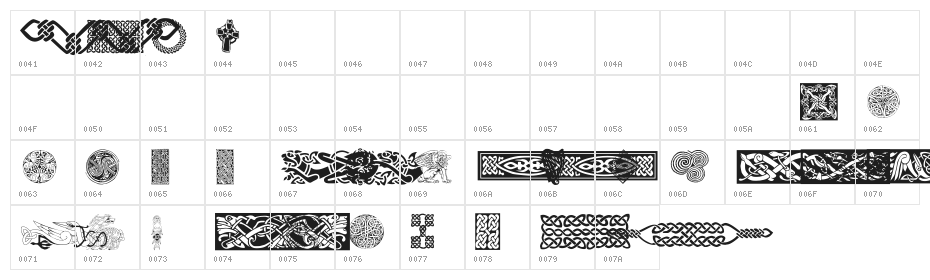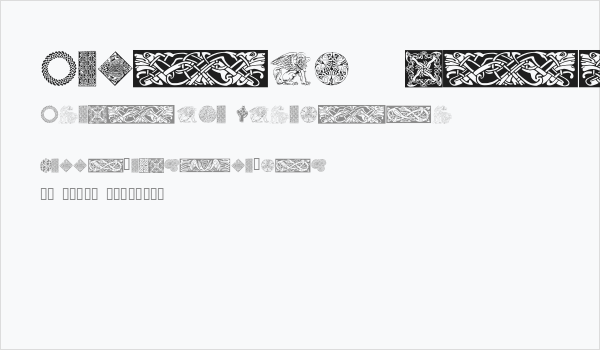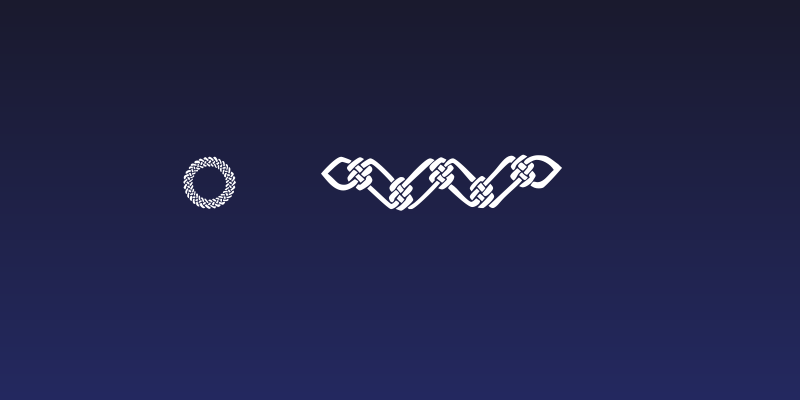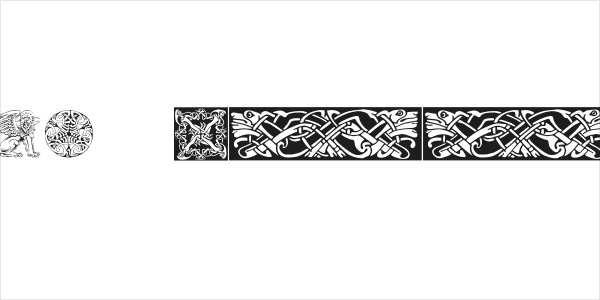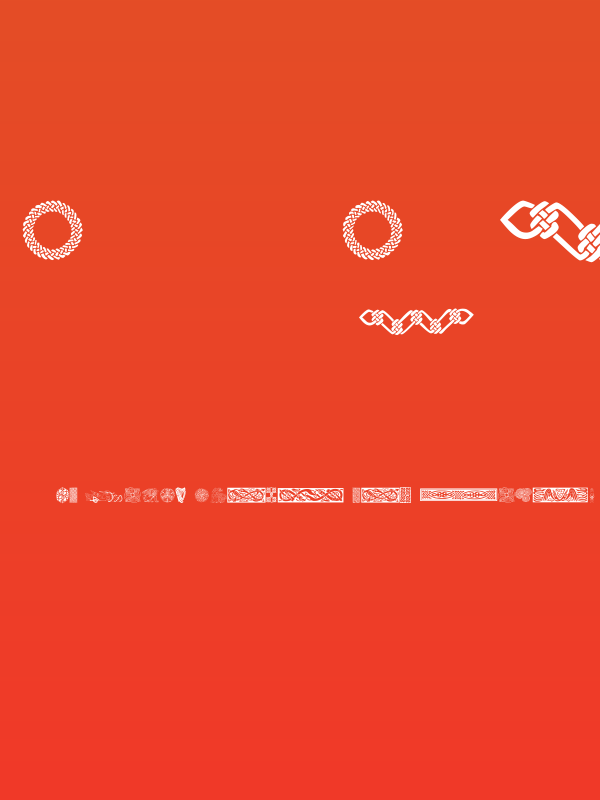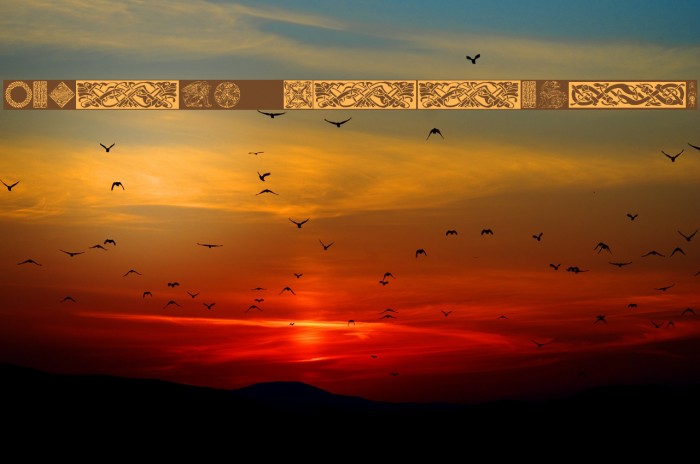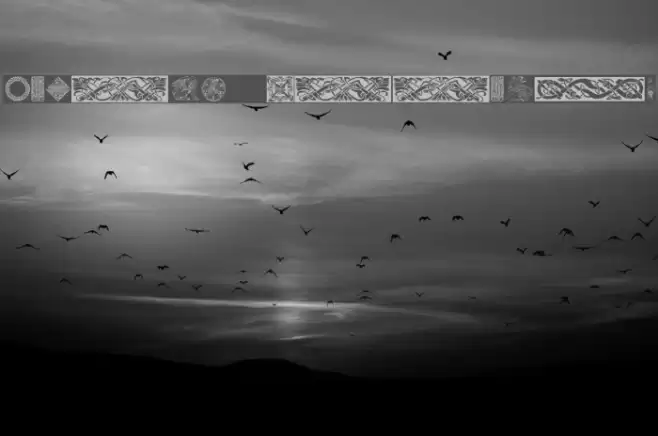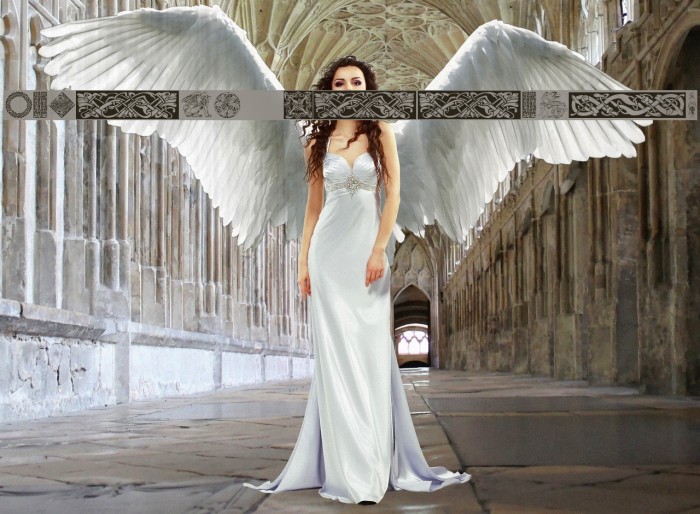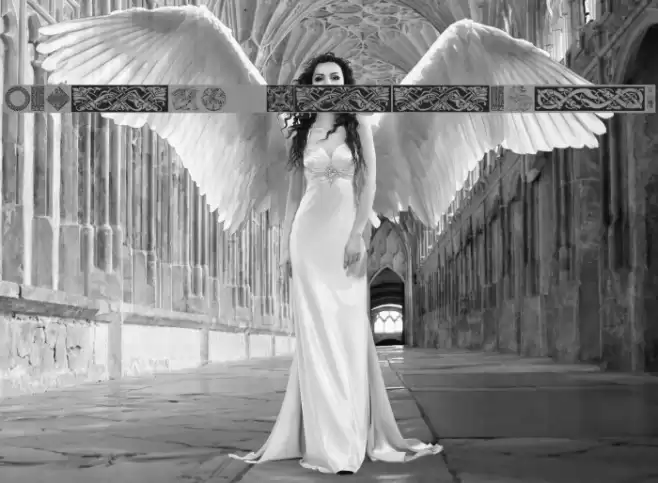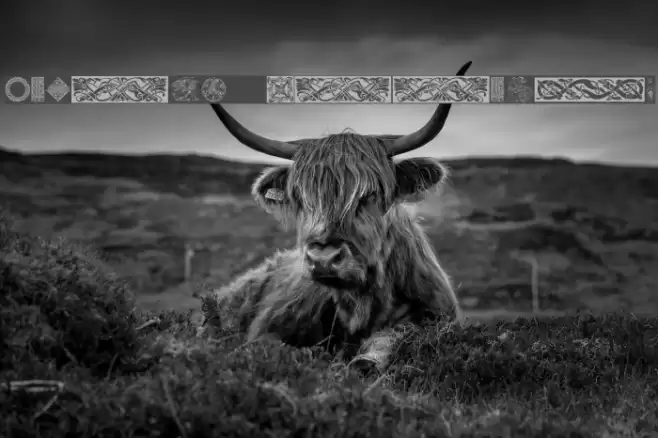
Celtic Patterns Font
Celtic Patterns Description
A decorative typeface featuring intricate Celtic knotwork, patterns, and motifs, with each character represented by a unique ornamental design rather than traditional letterforms. The designs are highly detailed, with interwoven lines and circular or rectangular shapes, evoking historical and cultural Celtic art.
| Overall Style | Decorative, Historical, Celtic |
| Use Case | Logos, Headlines, Decorative elements, Borders |
| Proposed Projects | Book covers, invitations, posters, branding for cultural events, decorative borders, themed graphics. |